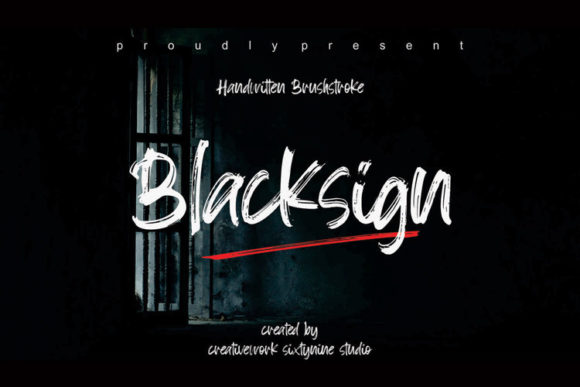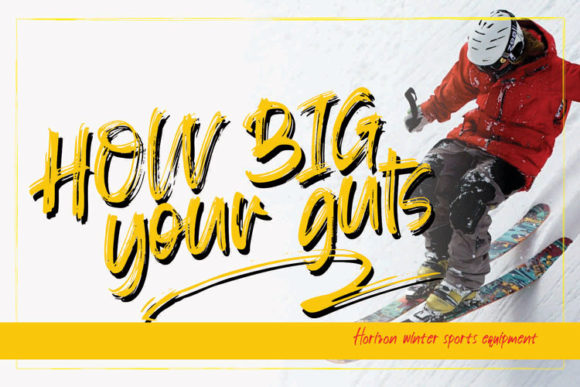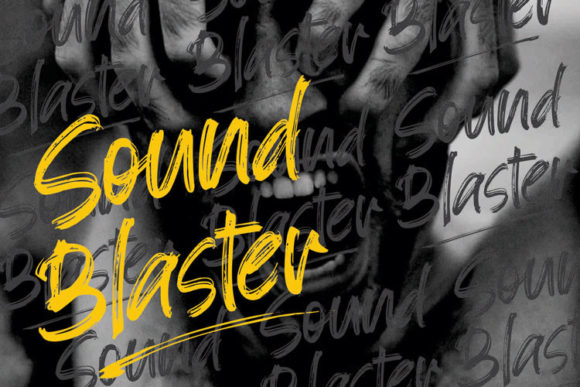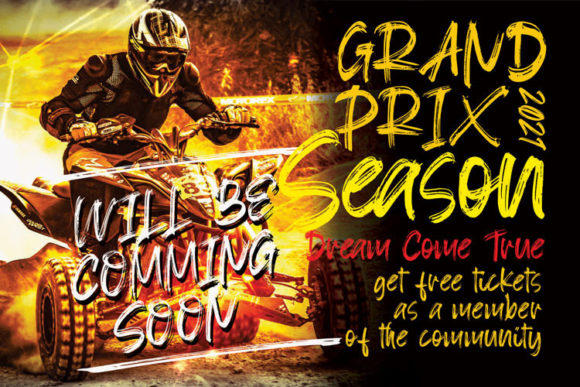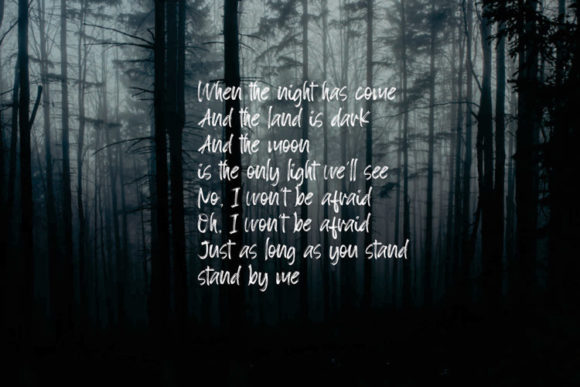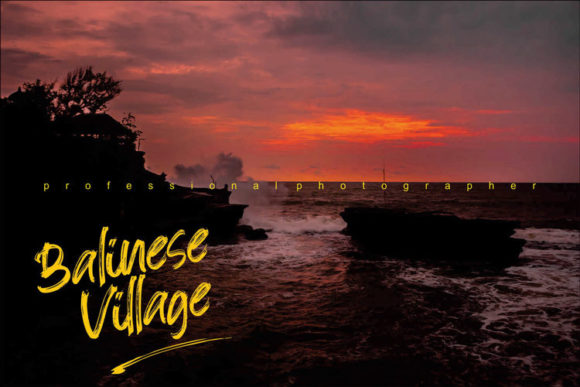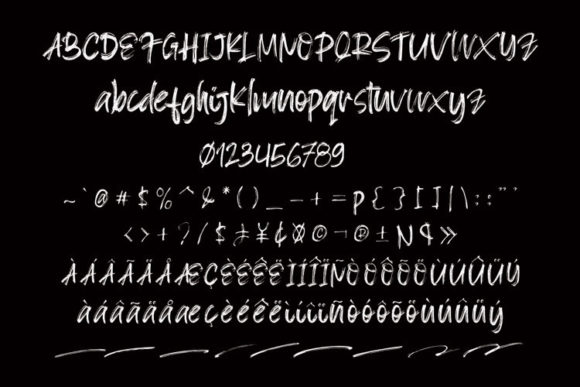
Introducing “Blacksign,” a cursive brushed handwritten font that adds a touch of elegance and charm to any design. With its unique and lovely style, this font is a versatile asset that can elevate a wide range of creative projects.
The flowing and expressive nature of “Blacksign” creates a sense of movement and sophistication in your designs. Each letter is meticulously crafted to capture the organic and dynamic strokes of a brush, resulting in a beautiful and handcrafted look. Whether you’re designing a logo, branding materials, quotes, or any other creative piece, “Blacksign” adds a touch of personality and flair.
One of the standout features of “Blacksign” is its ability to adapt to various design themes and topics. Its versatility makes it suitable for a wide range of projects, from wedding invitations and greeting cards to product packaging and social media graphics. The elegant and flowing letters effortlessly complement any content, allowing your message to shine.
The brush-like strokes of “Blacksign” give it a distinct and charming appearance. The deliberate inconsistencies and variations in letterforms create a natural and authentic feel, as if each character was hand-drawn with care. This adds a personal and artistic touch to your designs, making them stand out and captivate the viewer’s attention.
With “Blacksign,” you have the freedom to unleash your creativity. The font’s versatility allows you to experiment with different design elements, layouts, and color schemes, enabling you to create unique and eye-catching compositions. Whether you’re aiming for a bold and contemporary look or a more refined and elegant style, “Blacksign” can adapt and enhance your vision.
Adding “Blacksign” to your font library opens up a world of possibilities for your design projects. Its potential is limitless, whether you’re creating branding materials, social media graphics, invitations, or any other visual content. The font’s ability to effortlessly blend with other design elements makes it a valuable asset in your creative toolkit.
Whether you’re a professional designer or an enthusiastic hobbyist, “Blacksign” offers you the opportunity to create visually captivating and impactful designs. Its cursive brushed handwriting style brings a unique flair and a touch of sophistication to your creations. Let “Blacksign” inspire your imagination and take your designs to new heights.